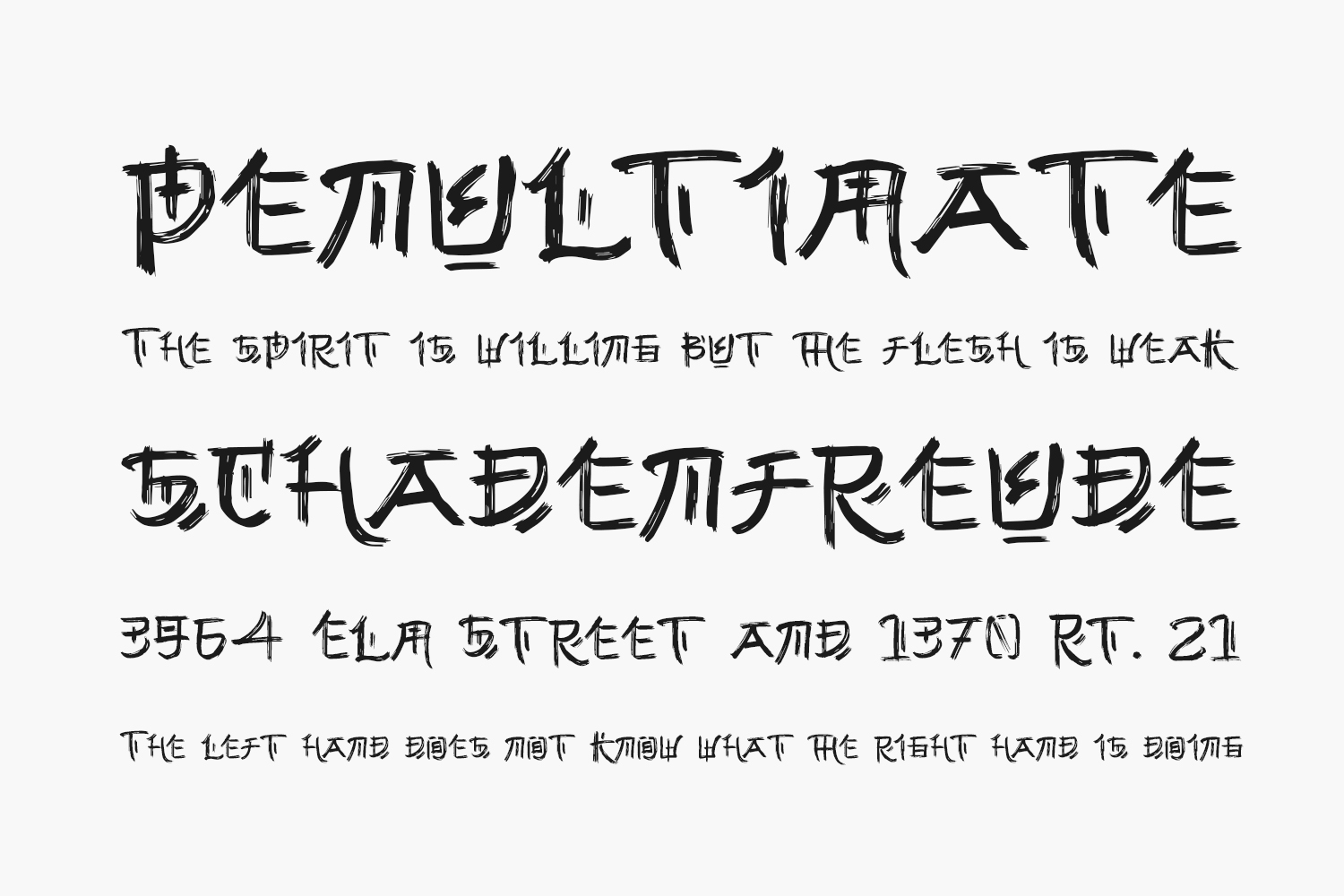
Gunji Free Font is an incredibly unique, Chinese inspired display font. It will look stunning on any food menu, poster flyer or print. Use this font for your designs and explore its endless possibilities. Gunji Free Font was designed by Typefactoryco and is free for personal use only. Please purchase the full version for commercial use.